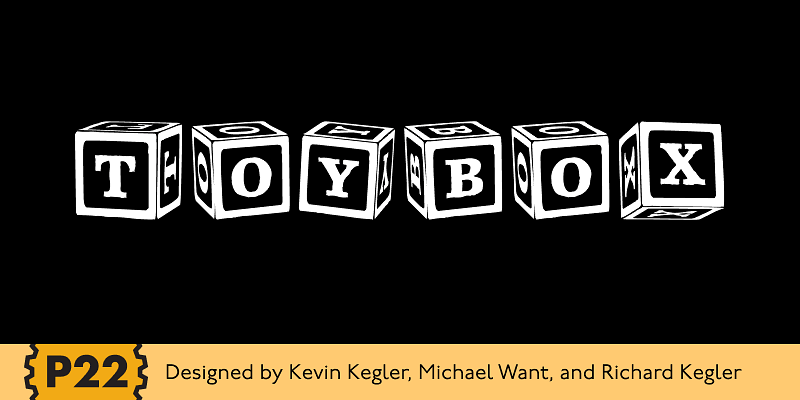
P22 ToyBox
P22 ToyBox is a playful family based on a hand-drawn alphabet created by an honest-to-goodness five-year-old. Its naive, irregular forms bring a sense of wonder and spontaneity to the page. The fonts include charming letterforms, illustrated animals, and alphabet blocks in solid, bold, lined, and three-dimensional styles. Perfect for birthday party invites, educational materials, storybooks, or anything that calls for childlike energy and imaginative fun.